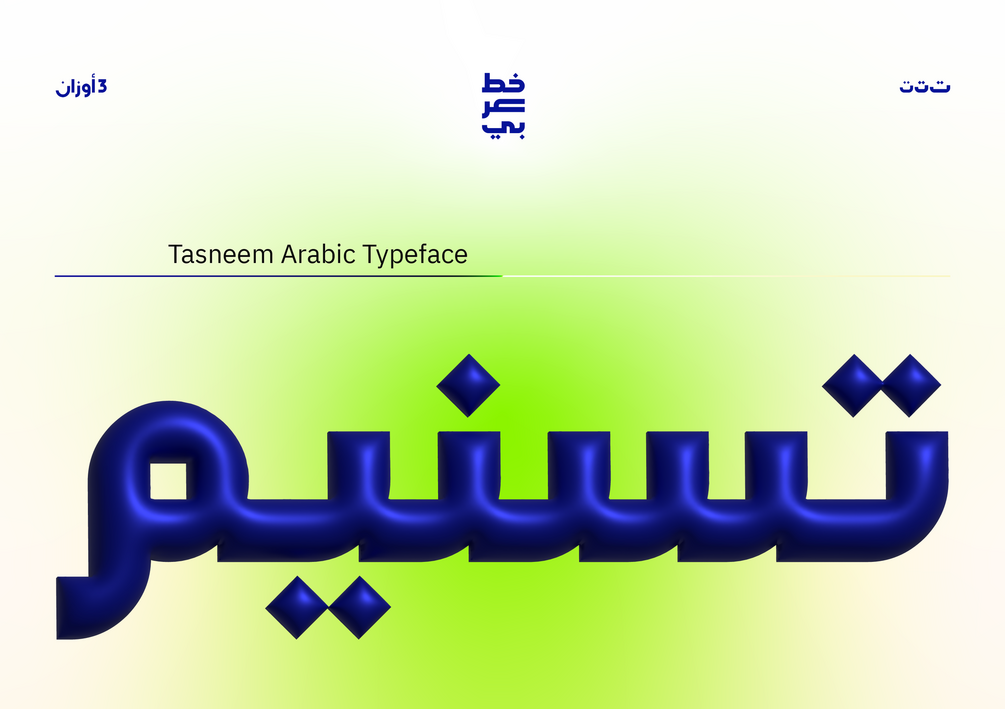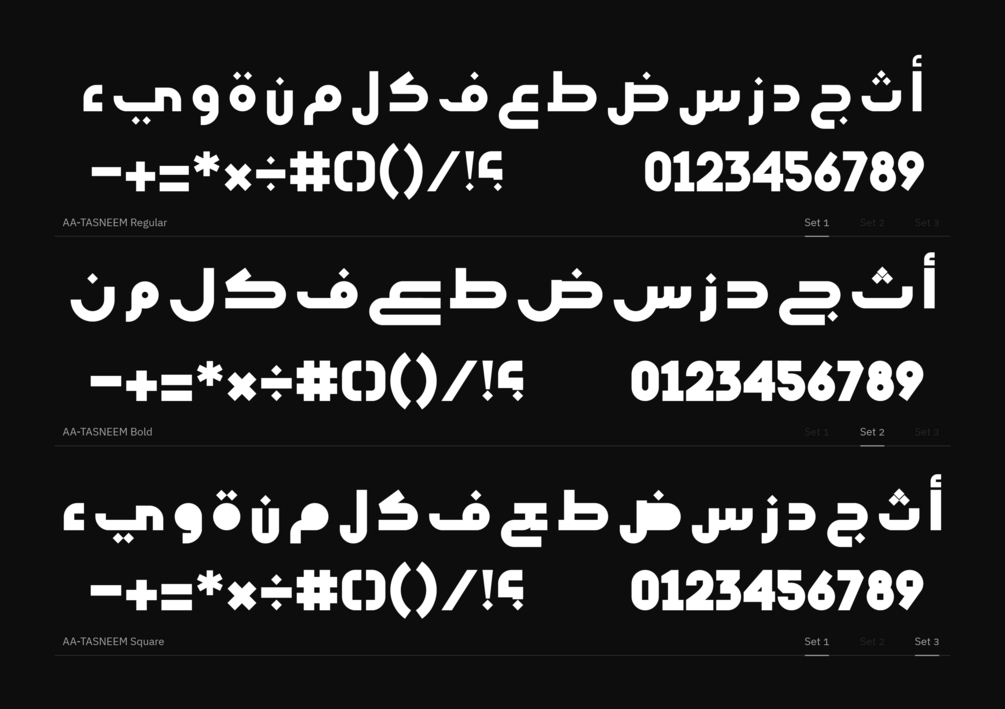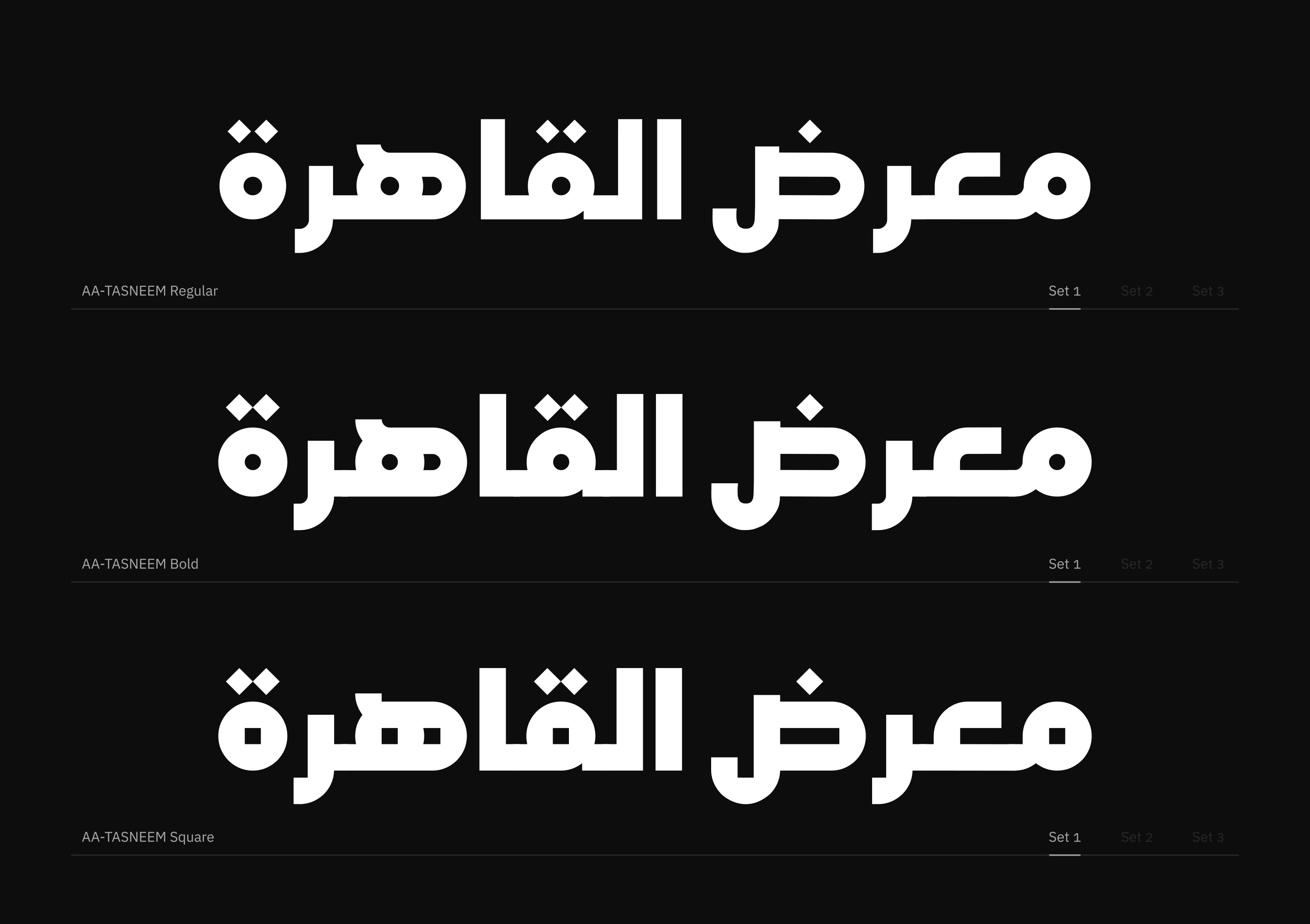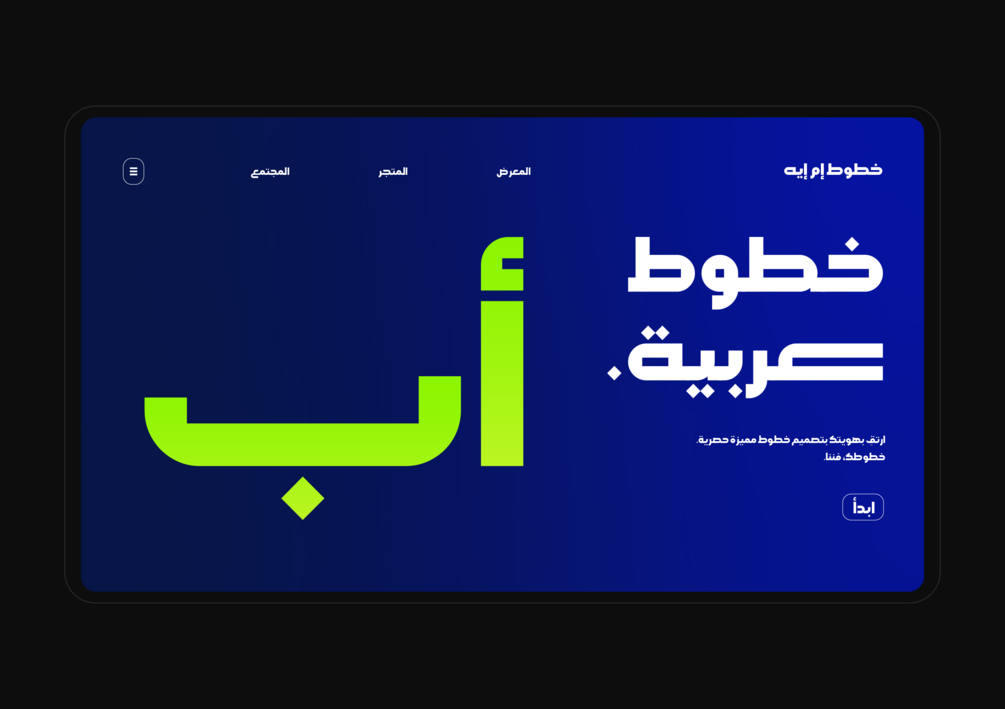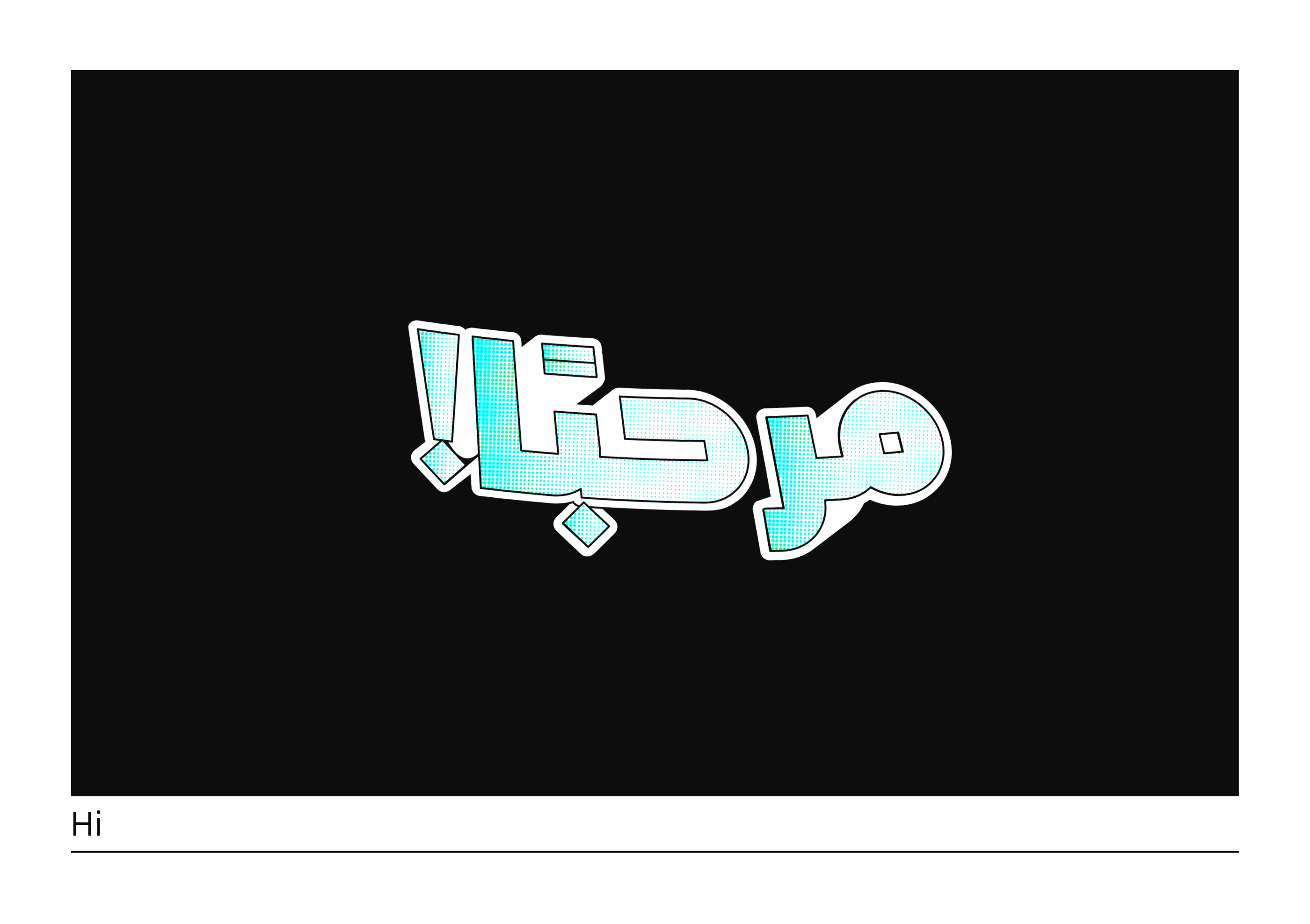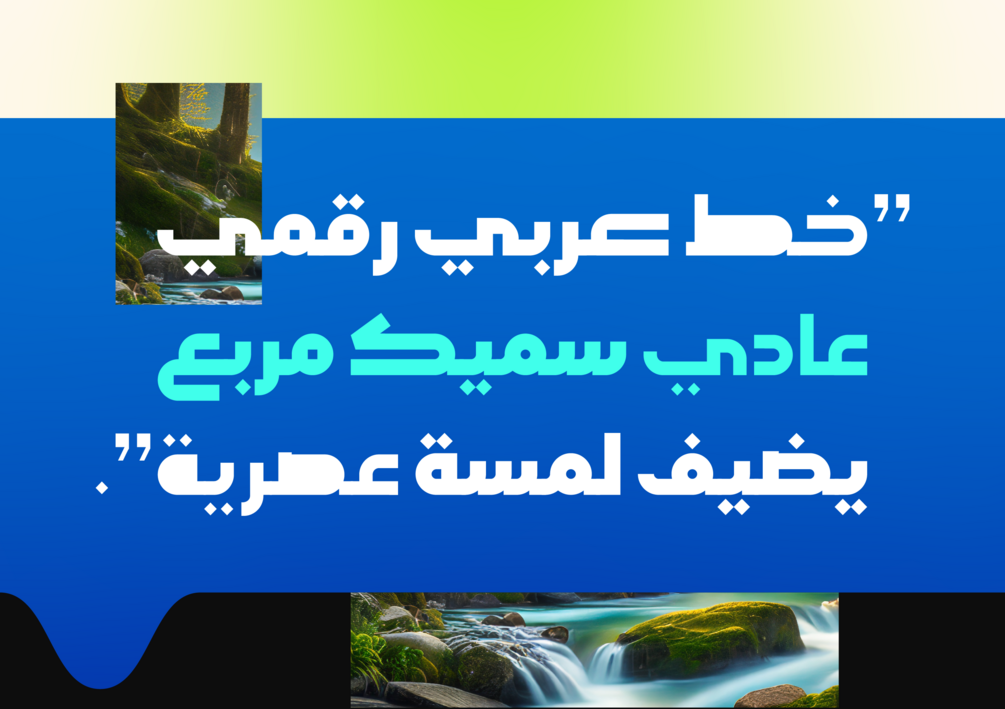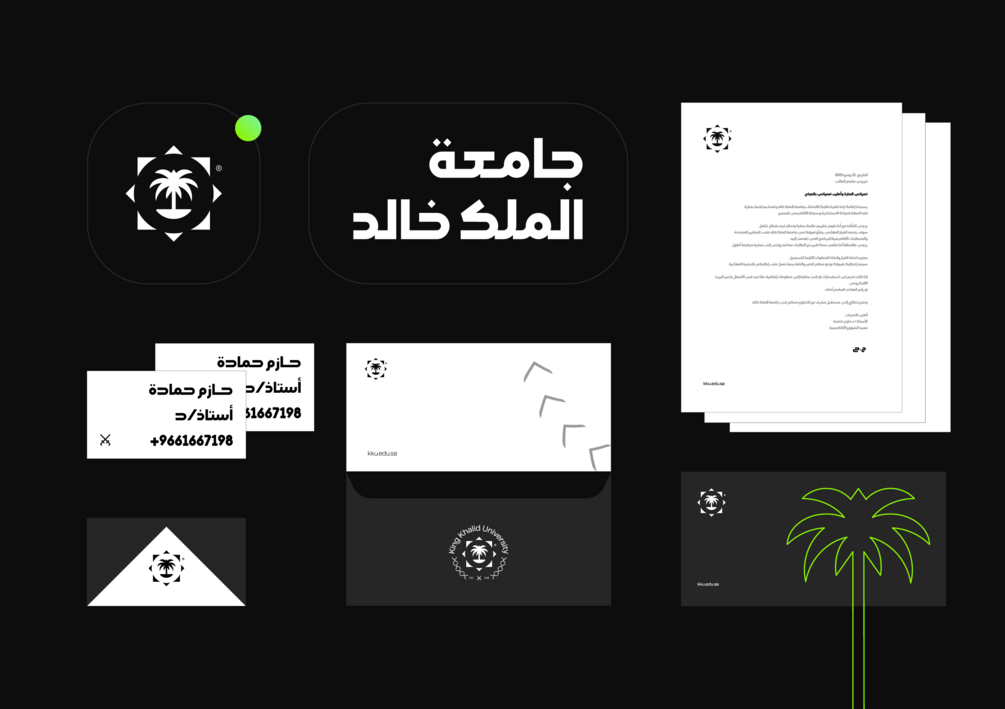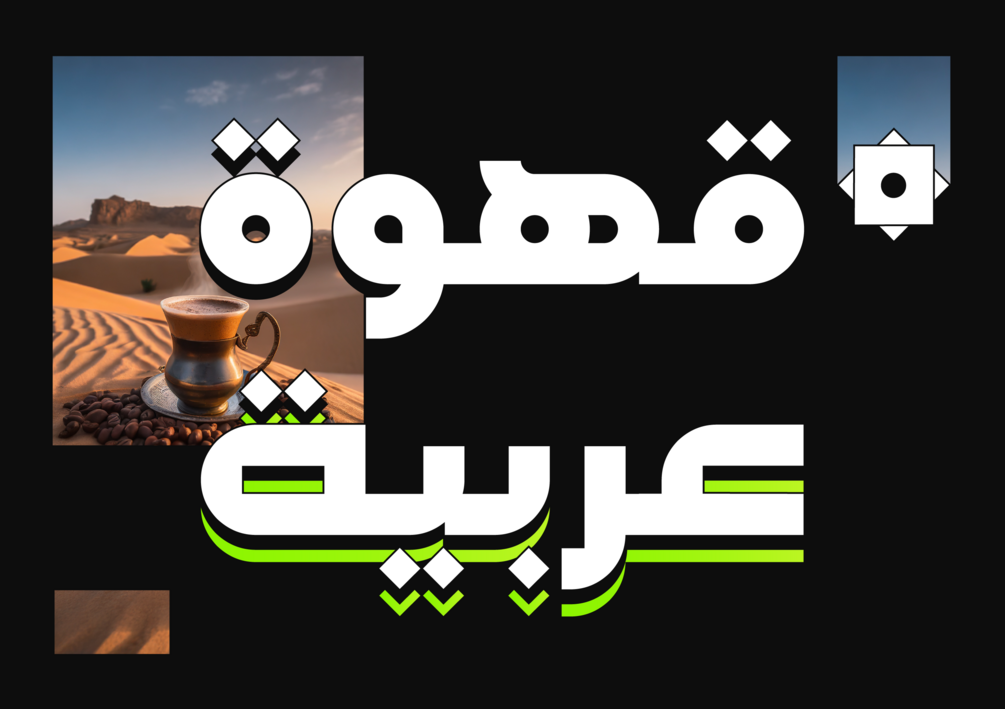
Tasneem Arabic Typeface
Tasneem is a digital Arabic typeface distinguished by three weights: regular, bold, and square. This typeface features geometric Arabic letters inspired by Kufic script and some movements from Naskh script.
The Tasneem typeface stands out with multiple stylistic sets for each letter, and it also includes the swash feature, adding an extra aesthetic touch to the characters.
The Arabic font Tasneem is designed to reflect the beauty of Arabic letters and be versatile for various visual applications. It can be used in designing logos, visual identities, as well as in print and digital applications such as brochures, magazines, web designs, and social media.
The design of the Tasneem typeface relies on its simplicity and elegance, incorporating suitable colors to enhance the beauty of Arabic letters. This font expresses sophistication and balance in design, making it suitable for various visual purposes.
Three weights